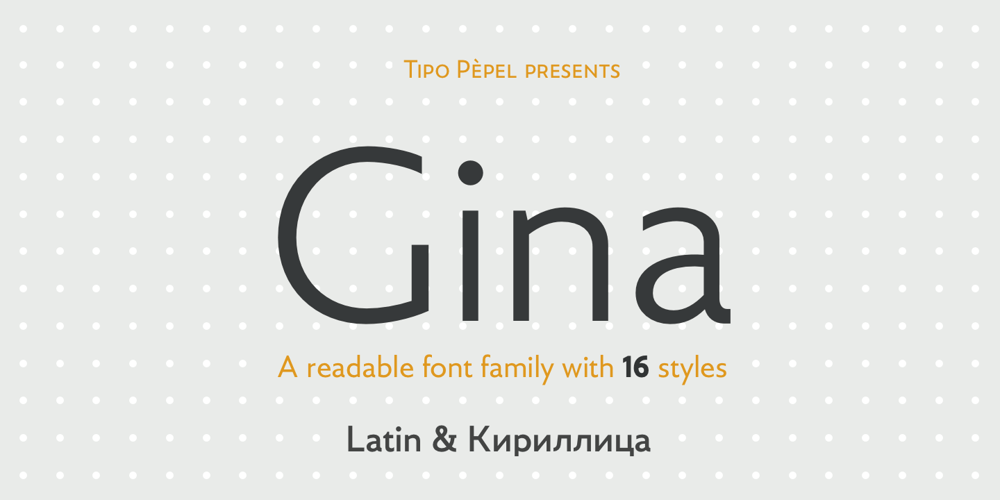
Gina Font Family was designed by Josep Patau Bellart and published by Tipo Pèpel. Gina contains 16 styles and family package options. Gina is an unbiased humanist sans. The simple skeleton of the characters and the organic strokes are essential features to the design. It is a typeface that looks to the future while keeping an eye on classic letterforms. If we have a closer look, we will notice there is a tendency towards vertical proportions. Ascenders and descenders are long, making for a light texture in small text sizes.The type family includes 8 weights and 8 italics. There is a clear link between styles, both in the structure and shape of the letterforms. The italic counterpart uses a moderate inclination and some letters adopt characteristics of cursive forms. Besides Latin, the character set of Gina includes Cyrillic and essential features for covering current typographic needs. Gina has a wonderful set of ligatures, which indeed will catch the attention of those who love connected letterforms.